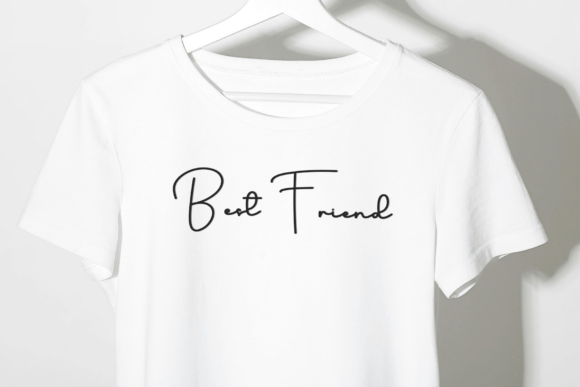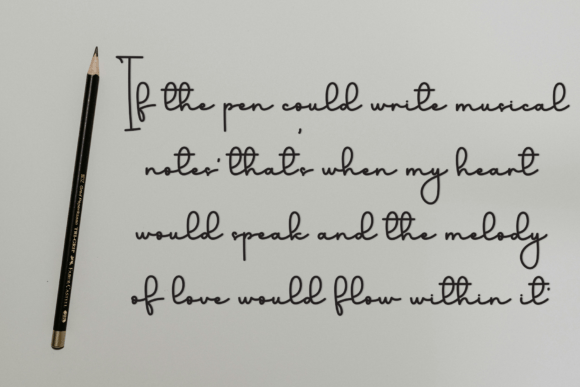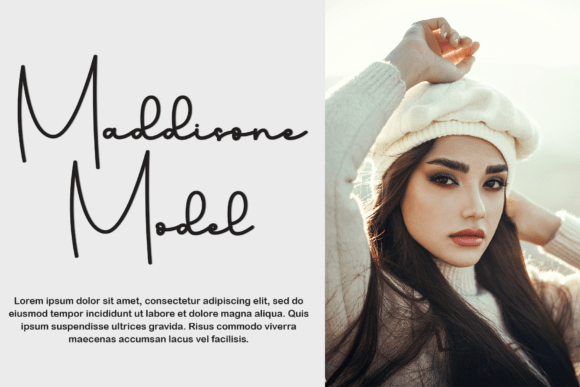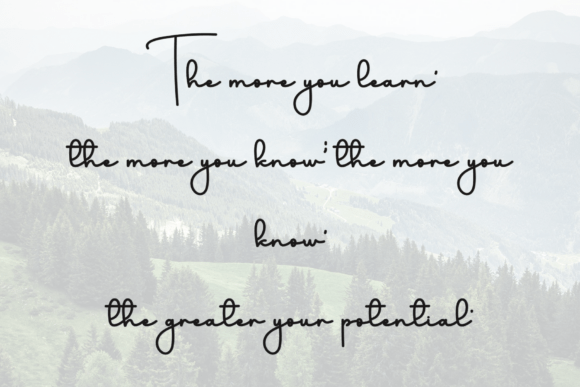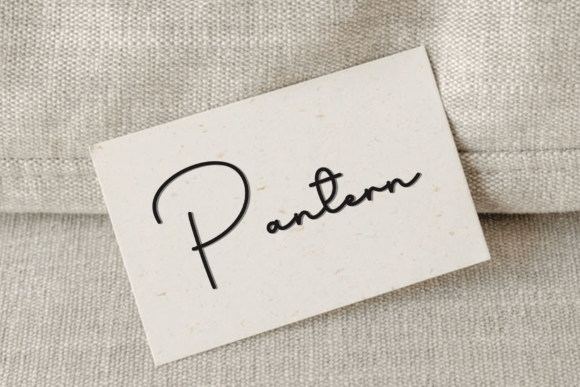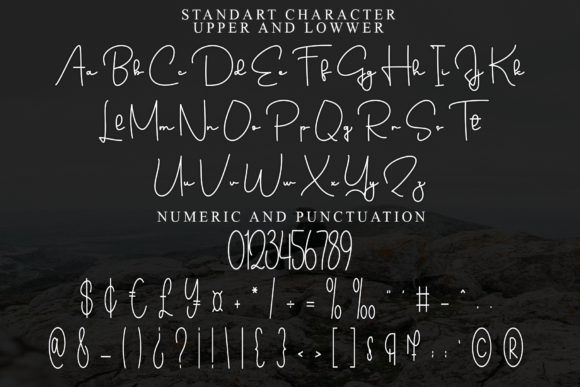
The Magic of Calligraphy Present Font: Elevate Your Designs with Elegance
Have you ever been in the middle of a design project, and suddenly, you’re struck by a creative block? You’re not alone! I recall working on a client’s wedding invitation project, searching for the perfect font to make it stand out. That’s when I stumbled upon the Calligraphy Present Font. Its unique, soft touch and distinctive strokes instantly captivated me, and I knew I had found the perfect fit. In this article, we’ll dive into the world of Calligraphy Present Font, exploring its features, uses, and what makes it a valuable addition to your design toolkit.
- ✅ Unique and eye-catching design: Calligraphy Present Font boasts a distinctive style that sets it apart from other fonts.
- ✅ Versatility: Its natural, elegant look makes it perfect for a wide range of design projects, from crafts to digital creations.
- ✅ Extensive character set: With a wide range of characters, you’re free to experiment and create stunning designs.
- ⚠️ Legibility at small sizes: While the font looks stunning at larger sizes, it may become less legible when used at smaller sizes.
- ⚠️ Glyph limitations: Some users may find that certain characters or glyphs are not available or are limited in their variations.
Calligraphy Present Font was crafted with love and attention to detail. Its creator aimed to design a font that would bring a touch of elegance and sophistication to various design projects. Inspired by traditional calligraphy, this font combines classic techniques with modern flair, making it perfect for creative professionals and hobbyists alike.
| Is Calligraphy Present Font suitable for body text? | While it’s primarily designed for display purposes, it can be used for short paragraphs or captions. |
In conclusion, Calligraphy Present Font is a beautiful and versatile addition to any designer’s toolkit. Its unique style, extensive character set, and compatibility with various platforms make it perfect for a wide range of creative projects. With its elegant and sophisticated look, this font is sure to elevate your designs and appeal to a broad audience across different artistic and creative fields.